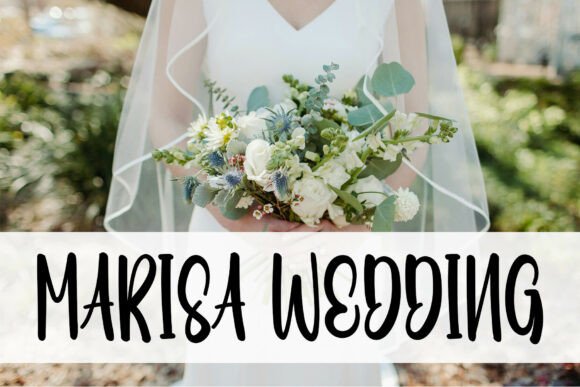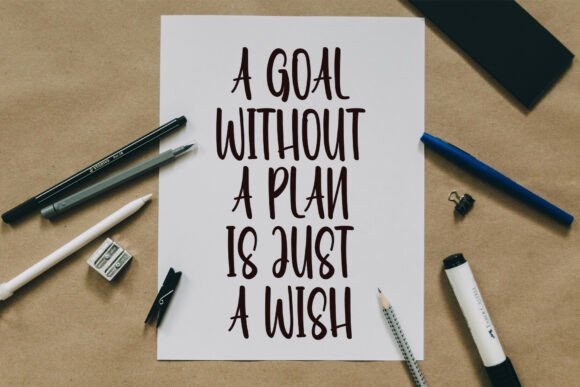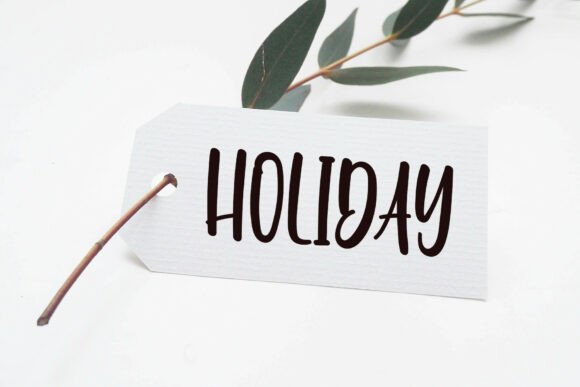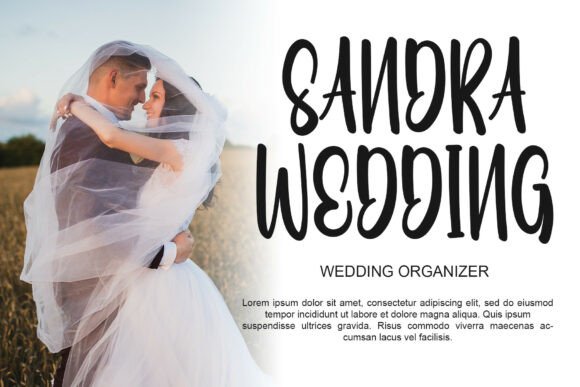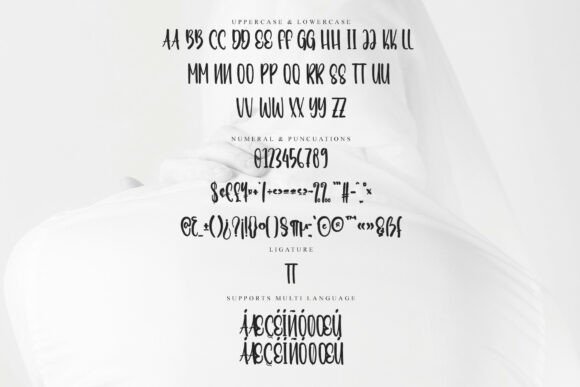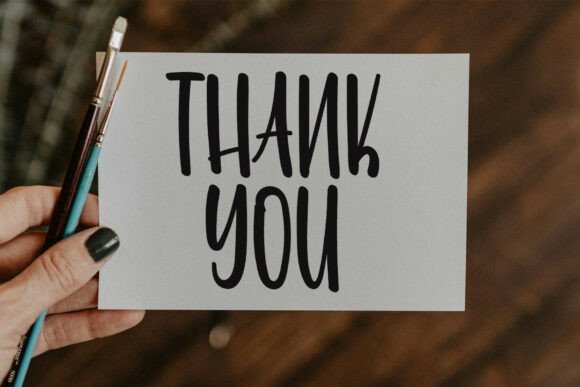
Introduction to Perfect Display Font
Perfect Display is a font that captivates with its bold, fluid strokes and dynamic script style.
Designed to exude strength, elegance, and charisma, this font blends the beauty of handwritten calligraphy with a modern and assertive touch Whether you need a striking logo, a stylish headline, or an eye-catching branding element, Master Daddy delivers with confidence and flair.
Key Features of Perfect Display Font
Why Choose Perfect Display Font?